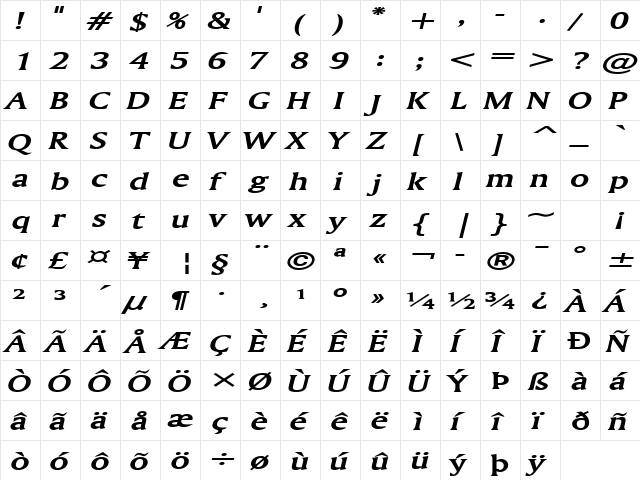
Ameretto Extended BoldItalic Font Preview
Design Context for Ameretto Extended Typeface
Ameretto Extended offers clean, dependable letterforms without strong stylistic allegiance, making it a practical choice for designers who need flexibility. The dynamic lean of this cut emphasises speed and emphasis in any layout. The heavy weight commands attention and anchors typographic hierarchies.